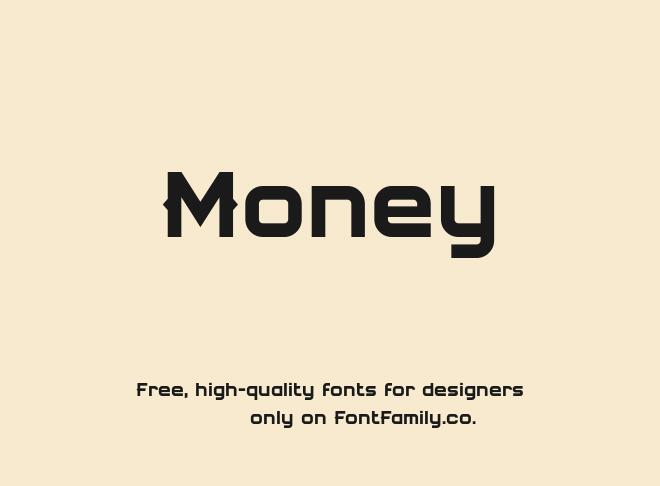
Money Font
Money Font is a strikingly bold and modern typeface designed by Currency Design Studio. Its distinctive, decorative style embodies the spirit of commerce and luxury, making it an excellent choice for branding, logos, and headline texts. The font's robust lines and sharp angles echo the strength of a steel vault, while its sleek modernity is reminiscent of digital currencies and fintech innovation. Despite its strong presence, Money Font maintains a level of readability that sets it apart from other display fonts. Its versatility makes it a valuable asset for designers working on a variety of projects, from print to digital media. Whether you're designing a high-end brand's logo or crafting the headline for an innovative fintech startup, Money Font is an investment that pays off in design dividends.